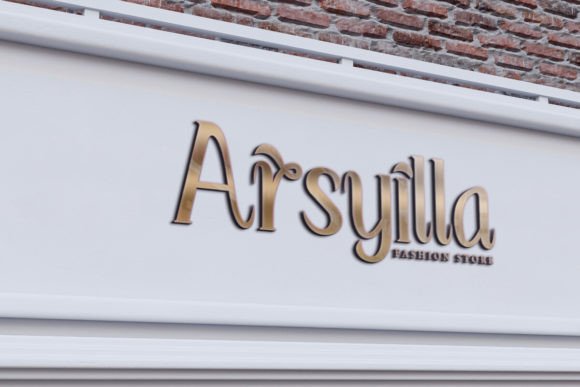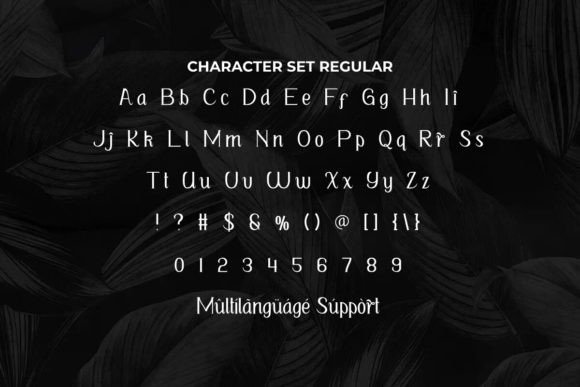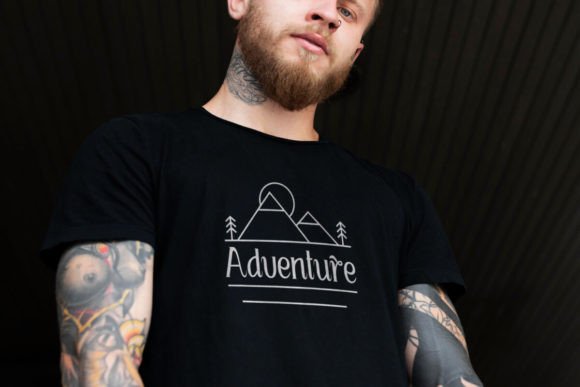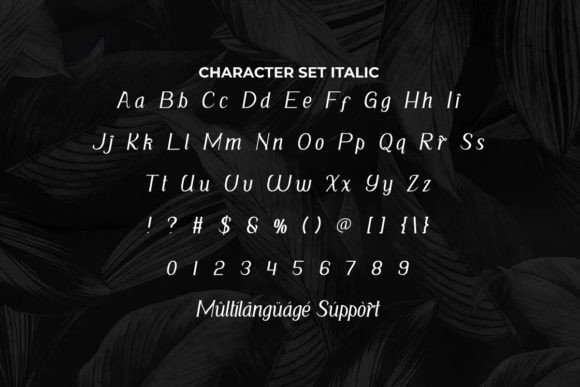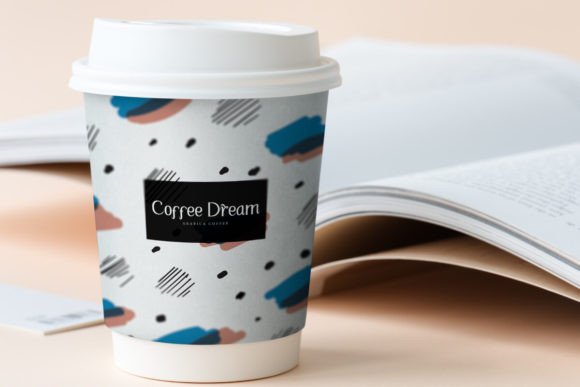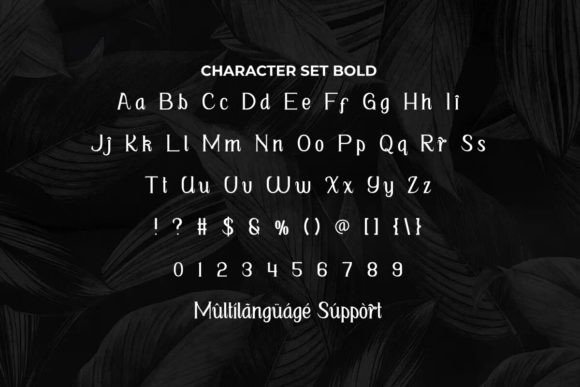
Unleash Your Creativity with Dark Idea Font: A Unique Serif Style for Designers and Crafters
Are you tired of using the same old fonts for your designs? Look no further! Dark Idea Font is a game-changer for designers and crafters alike. This unusual display font boasts a serif style that adds a touch of sophistication and elegance to any project. With its three distinct styles – Regular, Italic, and Bold – Dark Idea Font is sure to make your designs stand out from the crowd.
What Makes Dark Idea Font So Special?
Dark Idea Font is not your average font. Its unique serif style gives it a distinctive look that’s perfect for making a statement. Whether you’re designing a logo, brochure, or website, this font is sure to grab attention. The three styles – Regular, Italic, and Bold – offer versatility and flexibility, allowing you to experiment with different looks and feels to find the perfect fit for your project.
Perfect for a Wide Range of Industries
Dark Idea Font is a versatile font that can be used in a variety of industries, including:
- Accessories: Add a touch of elegance to your jewelry, clothing, or accessory designs.
- Advertisement: Make your ads stand out with a bold and eye-catching font.
- Café: Create a warm and inviting atmosphere with Dark Idea Font.
- Fashion: Perfect for fashion designers, bloggers, or influencers looking to make a statement.
- Florist: Add a touch of sophistication to your floral arrangements and designs.
- Furniture: Use Dark Idea Font to create stylish and modern furniture designs.
- Handicrafts: Perfect for crafters and artisans looking to add a personal touch to their designs.
- Perfume: Create a luxurious and high-end feel with Dark Idea Font.
- Printing: Use Dark Idea Font for printing projects, such as business cards, brochures, and more.
- Publishing: Add a touch of elegance to your books, magazines, or newspapers.
- Real Estate: Make your property listings stand out with a bold and eye-catching font.
- Restaurant: Create a warm and inviting atmosphere with Dark Idea Font.
Why Choose Dark Idea Font?
So, why choose Dark Idea Font over other fonts? Here are just a few reasons:
- Unique Style: Dark Idea Font has a distinctive serif style that’s sure to make your designs stand out.
- Versatility: With three styles to choose from – Regular, Italic, and Bold – you can experiment with different looks and feels to find the perfect fit for your project.
- High-Quality: Dark Idea Font is a high-quality font that’s perfect for professional designs.
Tips for Using Dark Idea Font
Here are a few tips for using Dark Idea Font:
- Use it sparingly: Dark Idea Font is a bold font, so use it sparingly to avoid overwhelming your design.
- Experiment with different styles: Try out different styles – Regular, Italic, and Bold – to find the perfect fit for your project.
- Pair it with other fonts: Dark Idea Font pairs well with other fonts, so don’t be afraid to experiment with different combinations.